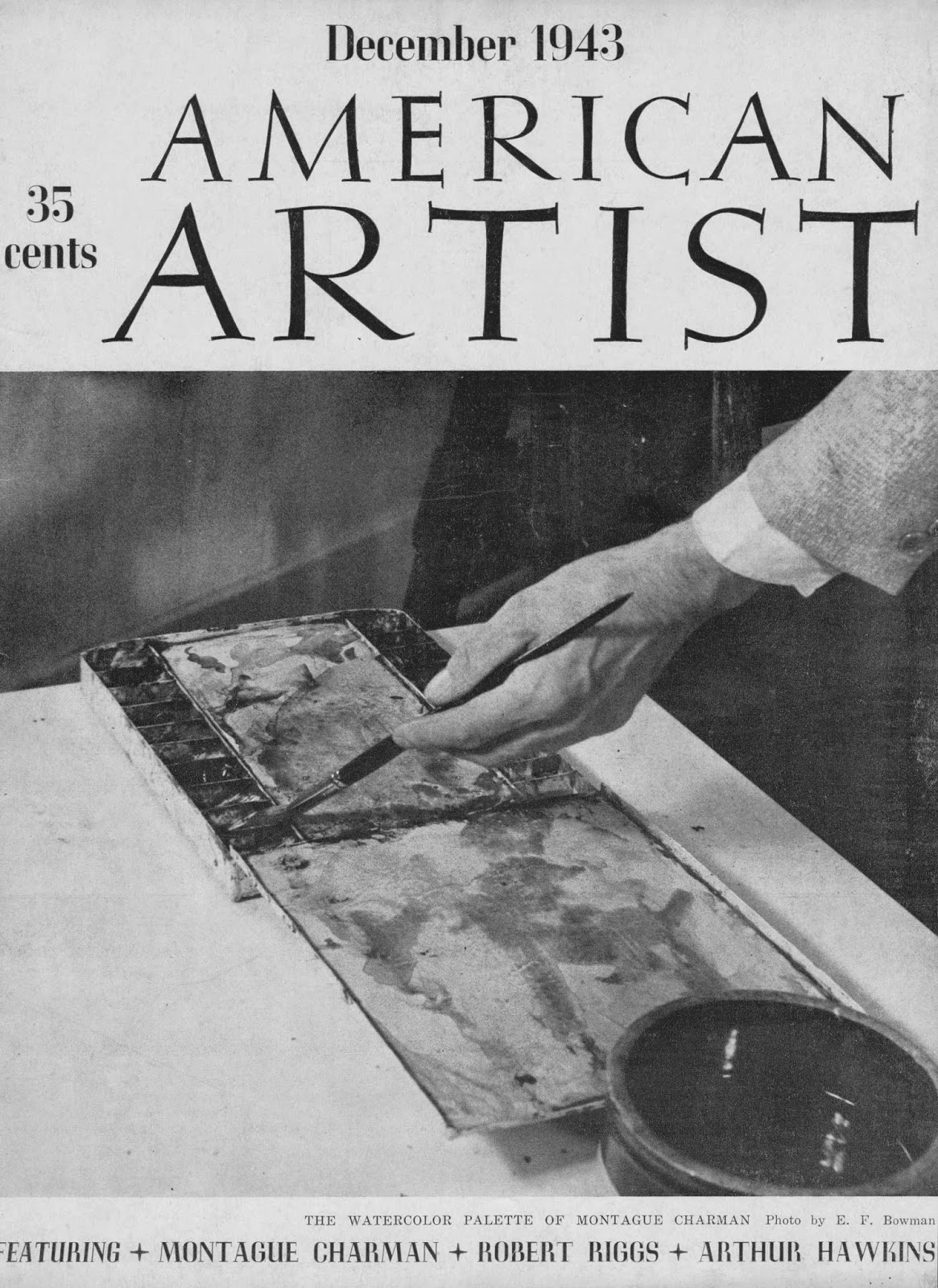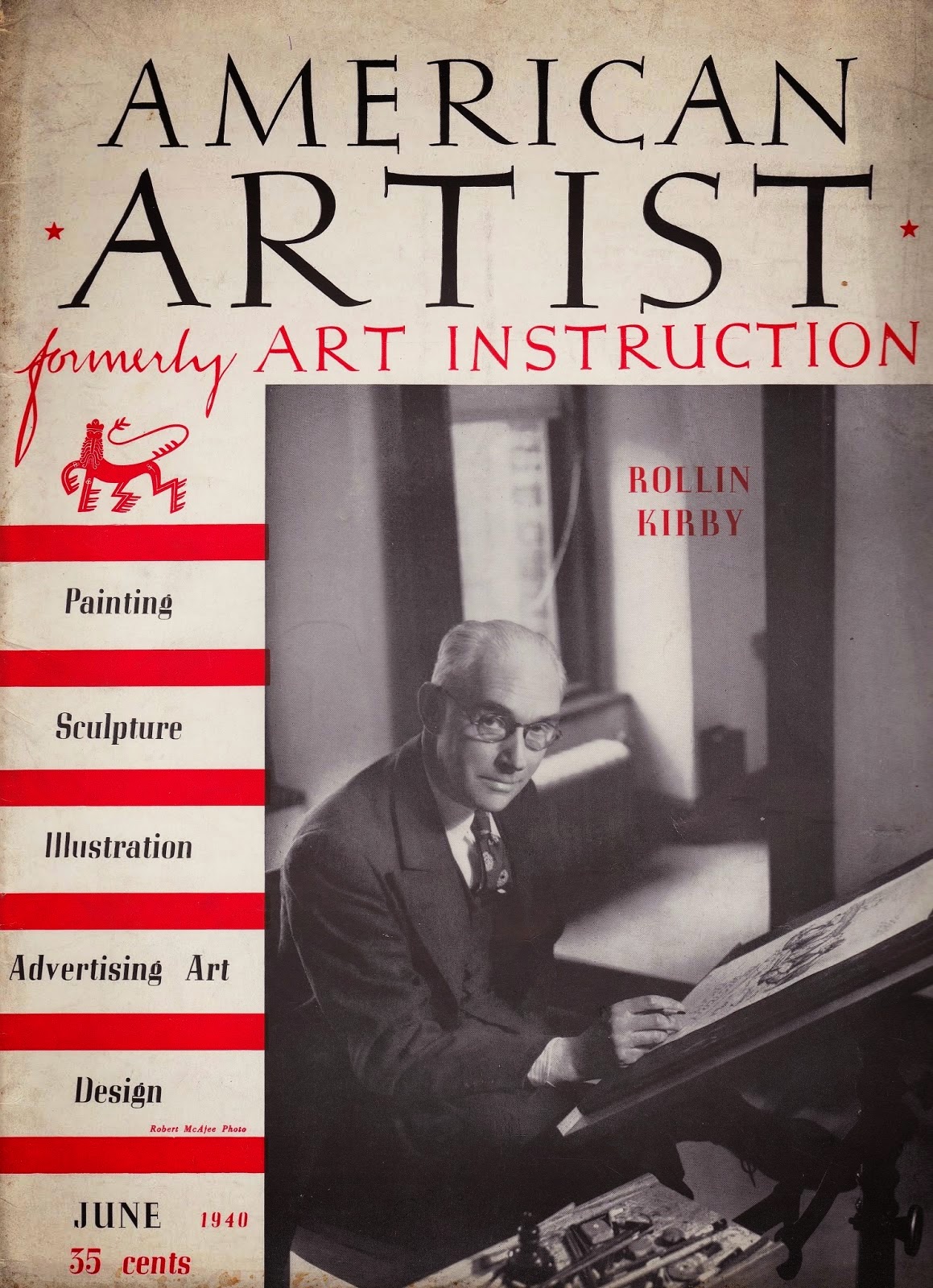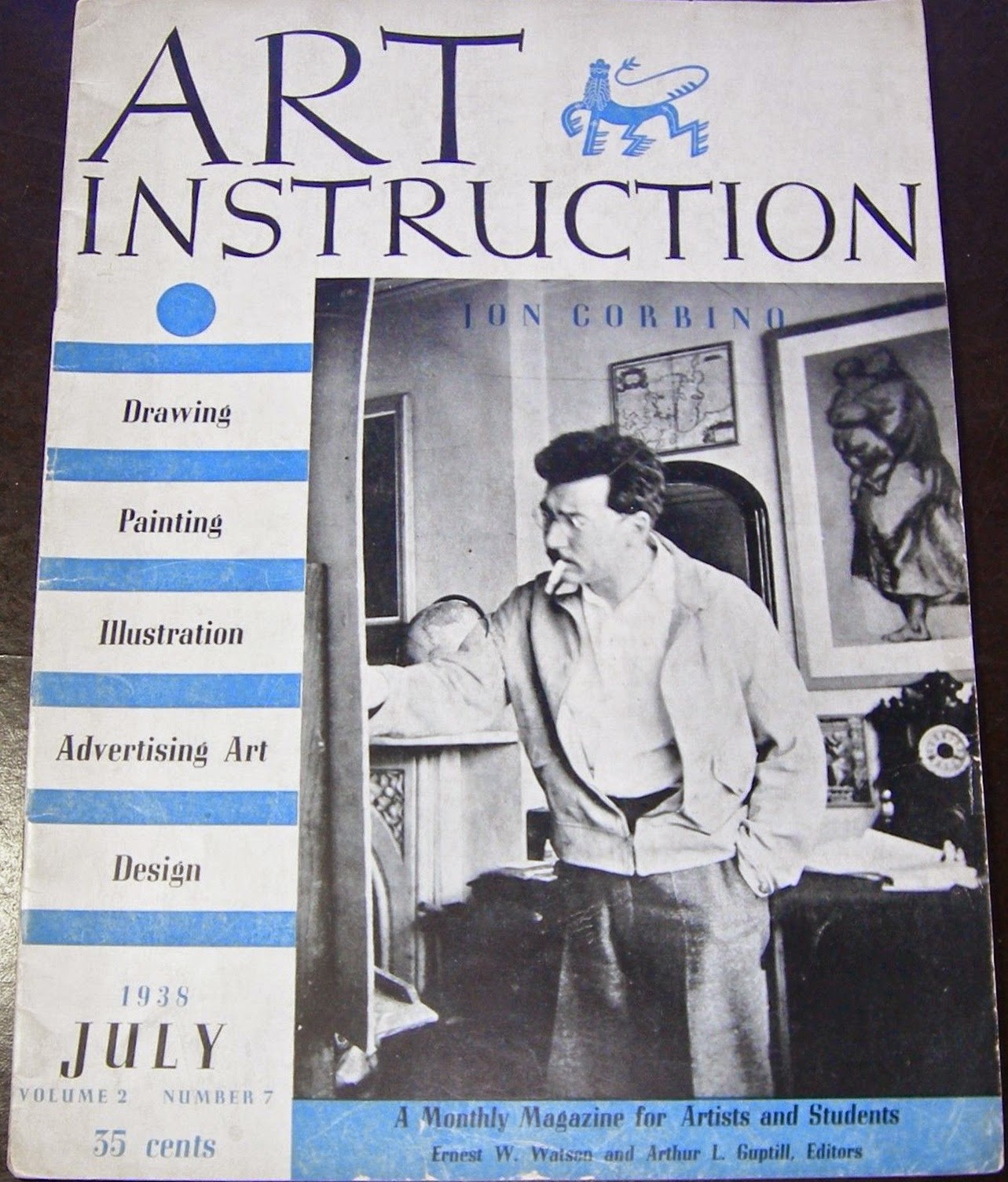
Lettering: Aldren A. Watson
Aldren A. Watson hand-lettered the first American Artist logo. He may have designed the title’s previous name, Art Instruction. It is not known if Aldren studied with a calligrapher or was self-taught. Art Instruction was created by Aldren’s father Ernest Watson and Arthur Guptill who formed the publishing company, Watson-Guptill. Aldren’s “contribution” to the Art Instruction logo was mentioned in the August 1938 issue:
“…This cartoon by Lawrence R. Lewton of Portland, Oregon, was submitted in Art Instruction’s recent Caricature and Cartoon Contest. For Mr. Lewton’s information we’ll explain where the “Beastie” came from. When Art Instruction’s cover was being designed, all seemed finally complete except that white space in the upper-right corner. Editor Watson, glancing at his son Aldren’s letterhead, espied said Beastie, attacked it with editorial scissors and slapped it on the cover design. Be thankful you’re not an editor’s son!”
The title changed with the January 1940 issue; below is the June 1940 American Artist cover featuring cartoonist Rollin Kirby.
The new cover format was introduced with the January 1944 American Artist that mentioned Aldren’s contribution on page two:
“…Although our new cover appears, at first glance, to be entirely new, one feature of the old has been retained; our name, American Artist, which was hand-lettered by Aldren A. Watson several years ago, appears in the same beautifully designed style, white on black, in the band across the top….”
Aldren’s logo was replaced around the last quarter of 1951.
Aldren Auld Watson was born in Brooklyn, New York, on May 10, 1917. The 1920 U. S. Federal Census recorded him, his parents, Ernest and Eva, and older brother, Merlin, in Brooklyn at 181 Emerson Place. At the time his father was an instructor at a private school. Their address was the same in the 1925 New York State Census and 1930 census.